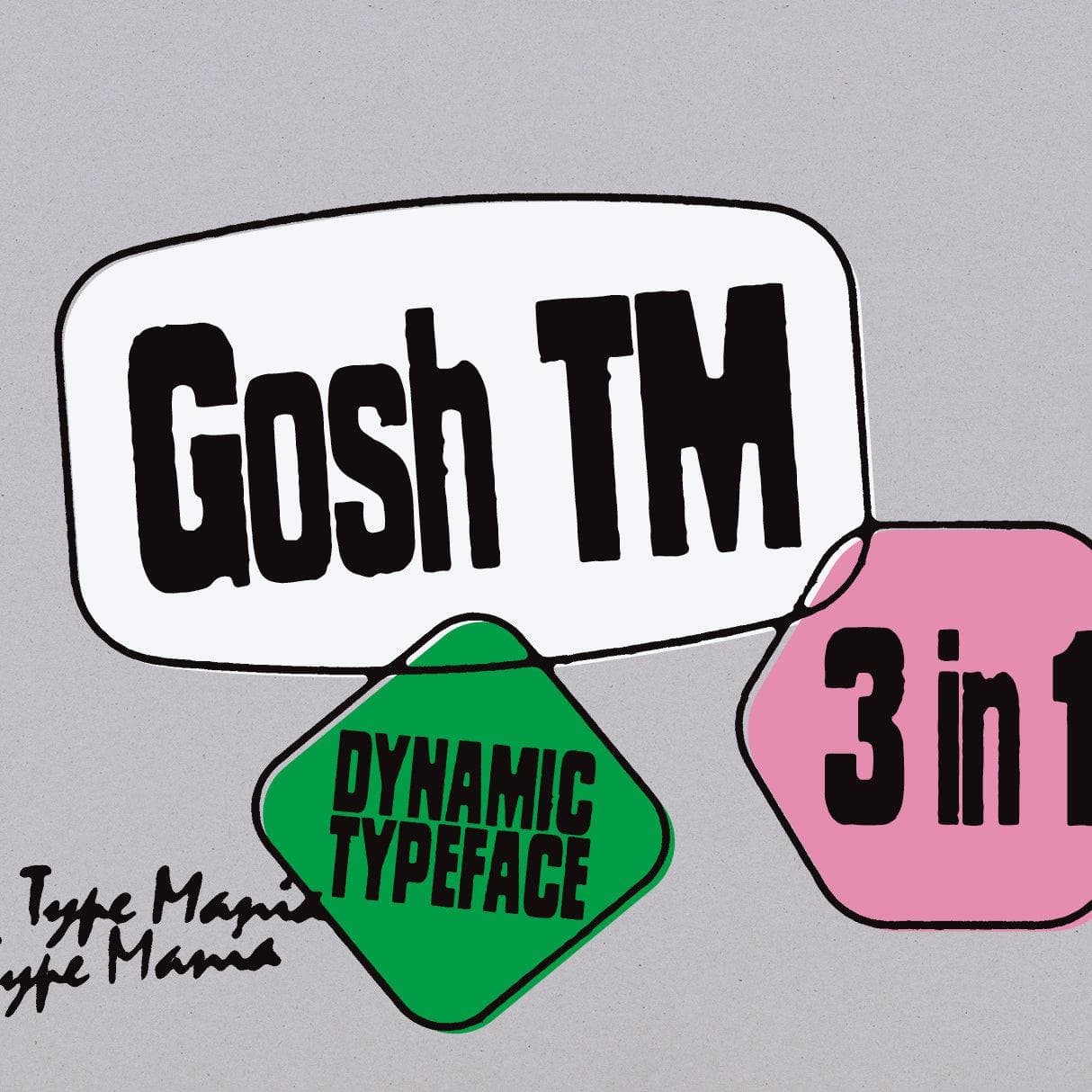
<p>Introducing <strong>Gosh TM</strong>. A soulful typeface merging raw beauty with cutting-edge design features. Not only does this display font command attention visually, but it also offers 3 interchangeable stylistic sets, making the designers job that much easier.</p> <p><strong>Zip includes</strong></p> <ul> <li>OTF file</li> <li>TTF file</li> <li>WOFF2 file</li> </ul> <p><strong>OpenType features</strong></p> <ul> <li>3 stylistic sets</li> <li>The font is programmed to automatically shift between the stylistic sets whenever the same glyphs are typed side by side</li> </ul> <p><strong>Languages</strong></p> <ul> <li>Basic Latin</li> <li>Western European</li> <li>Euro</li> <li>Central European</li> <li>Pan African Latin</li> <li>428 glyphs</li> </ul> <p><em>Graphic Design is Easy (with Type Mania)®</em></p>